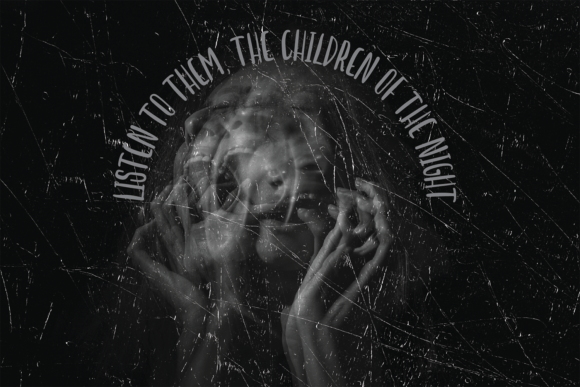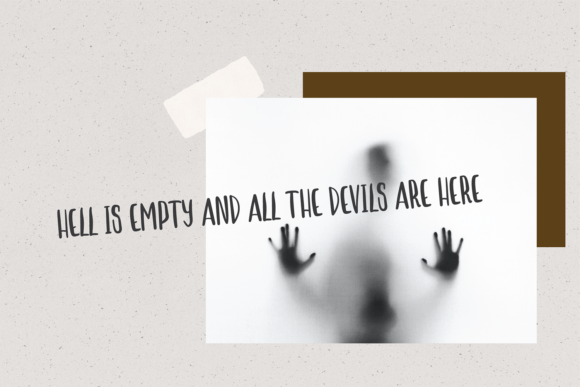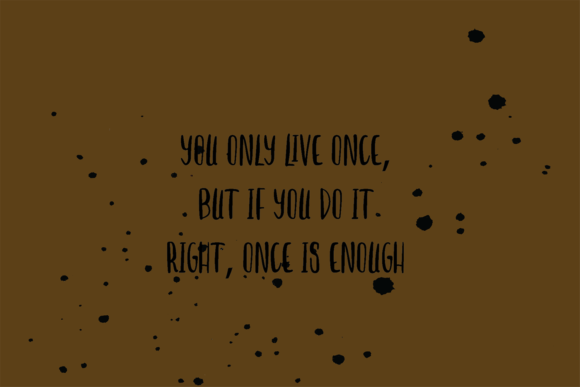
Spicing Up Your Halloween Projects with the Perfect Font
As you sit at your desk, surrounded by spider webs, jack-o-lanterns, and ghostly decorations, you can’t help but feel a spark of creativity ignite within you. The air is electric with the excitement of Halloween, and you’re eager to bring your spooky vision to life. But, there’s one crucial element that can make or break the atmosphere of your design: the font.
Enter the Ghoulish Font, a handwritten masterpiece that will transport your audience to a realm of eerie elegance. This font is specifically designed to elevate your Halloween projects, from invitations to signage, and everything in between. As a designer, you know the importance of a well-chosen font in setting the tone for your design. And with the Ghoulish Font, you’ll be able to tap into the essence of the season and create truly unforgettable experiences.
Ghoulish Font Key Features
- Font Family: Ghoulish Font is a typeface designed specifically for horror and dark-themed projects, with a unique blend of gothic and grotesque elements.
- Size: The font family includes multiple weights, ranging from Thin to Black, with 8 different styles to suit various design needs.
- Unique Characteristics: Distinctive features include ornate details, irregular shapes, and an eerie atmosphere, making it perfect for horror-themed projects, dark fantasy, and gothic-inspired designs.
- Language Support: Supports a wide range of languages, including Latin, Cyrillic, and Greek scripts, making it suitable for international designs.
Ghoulish Font Review
As a designer, I’ve had the chance to work with the Ghoulish Font, and I must say it’s a unique addition to any project. ✨ The font’s gothic-inspired aesthetic is sure to grab attention and add a touch of eeriness to your designs.
- ✨ Uniqueness: The Ghoulish Font is unlike any other font I’ve worked with, making it perfect for those looking to stand out.
- ✨ Versatility: It can be used for a variety of projects, from horror-themed designs to edgy fashion brands.
- ✨ High-quality rendering: The font is well-designed and renders beautifully on various devices.
- ⚠️ Limited character set: The font’s character set is relatively small, which may limit its use in certain projects.
- ⚠️ Not ideal for body text: While the font is great for headlines and titles, it may be difficult to read for extended periods of time in body text.
Overall, I think the Ghoulish Font is a great addition to any designer’s toolkit, but it’s essential to consider its limitations when choosing a font for your project. With careful use, it can add a touch of sophistication and intrigue to your designs.
The Ghoulish Font is ideal for creating spooky, Halloween-themed designs. Use it to add a creepy touch to your posters, flyers, and social media graphics.
For the most effective use, pair the Ghoulish Font with bold, contrasting colors and eerie imagery.